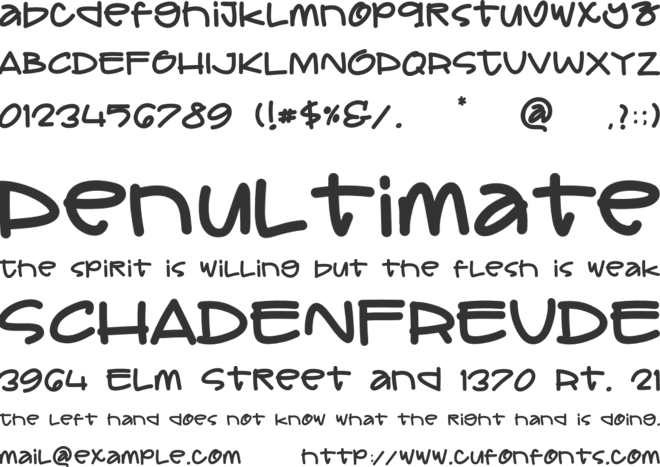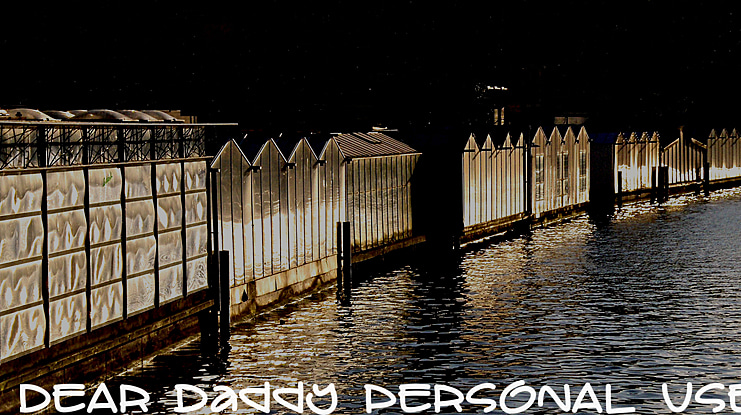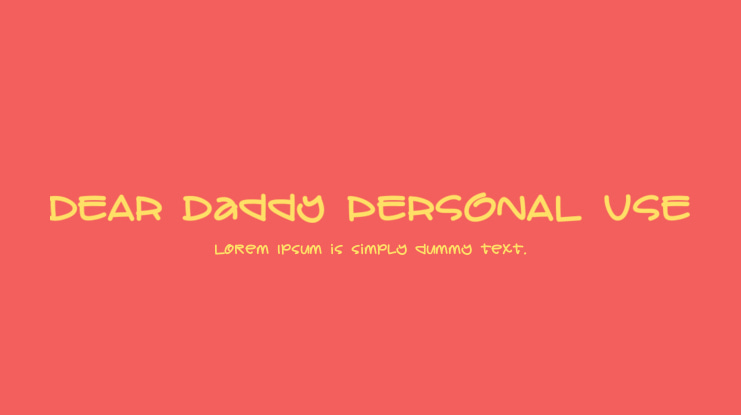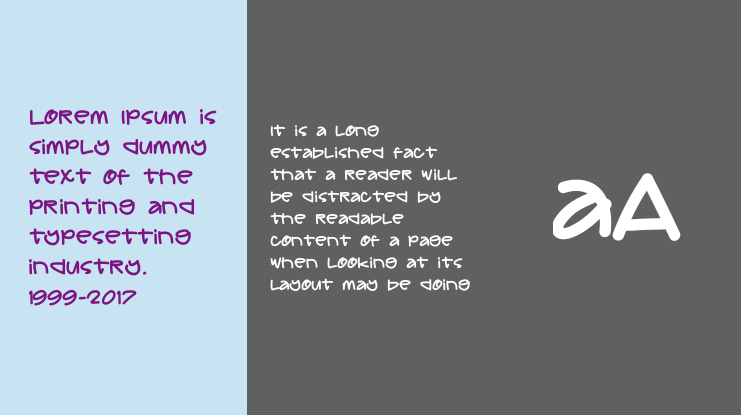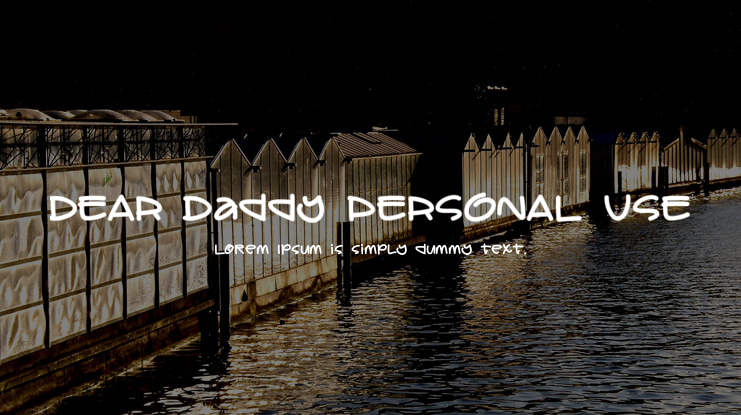
DEAR Daddy PERSONAL USE Font
Lemoncraft 2018
Introducing: Dear Daddy!
A fun hand-written font mix match low-upper case. with the character Happy n Fun, it is amazing for your design project, such as Kids apparel, Packaging design, Resto, Cafe, Greeting and more.